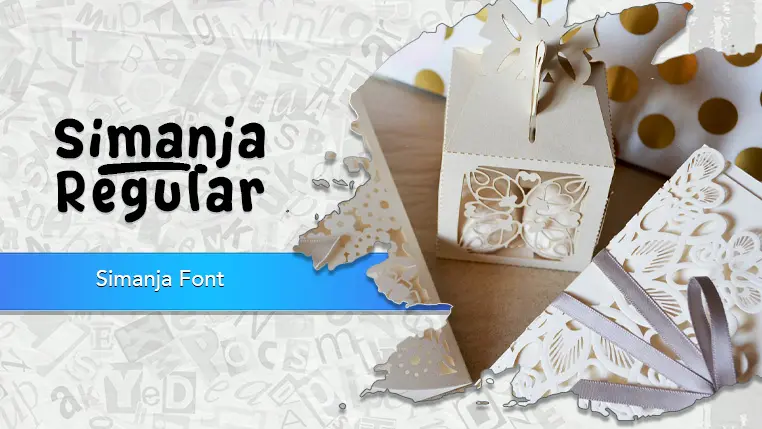
The Simanja font family may be ideal for you if you enjoy working on an artistic design project. The lively, expressive look of this typeface, which was created by Khurasan, makes it ideal for Wedding invitations, save-the-dates, and thank-you cards, Baby shower or bridal shower invites, Also you can use for logo on Boutique shops, Photography studios, Event planning services and Beauty and cosmetic brands. Magazine titles or pull quotes for lifestyle, fashion, or home decor publications. and other light-hearted visual projects.
Regular are the one primary font styles of the Simanja font family. You may build dynamic, visually appealing text layouts with the distinct flair that each style offers. With crisp, readable lines and a relaxed tone.